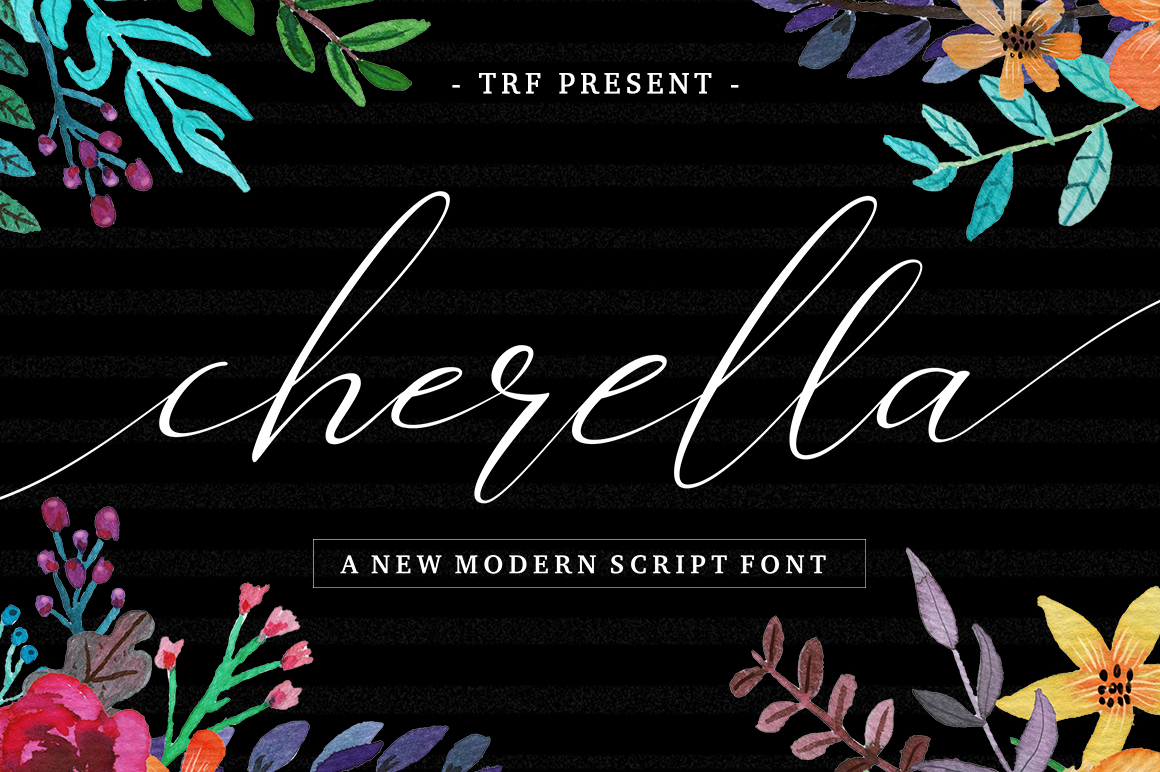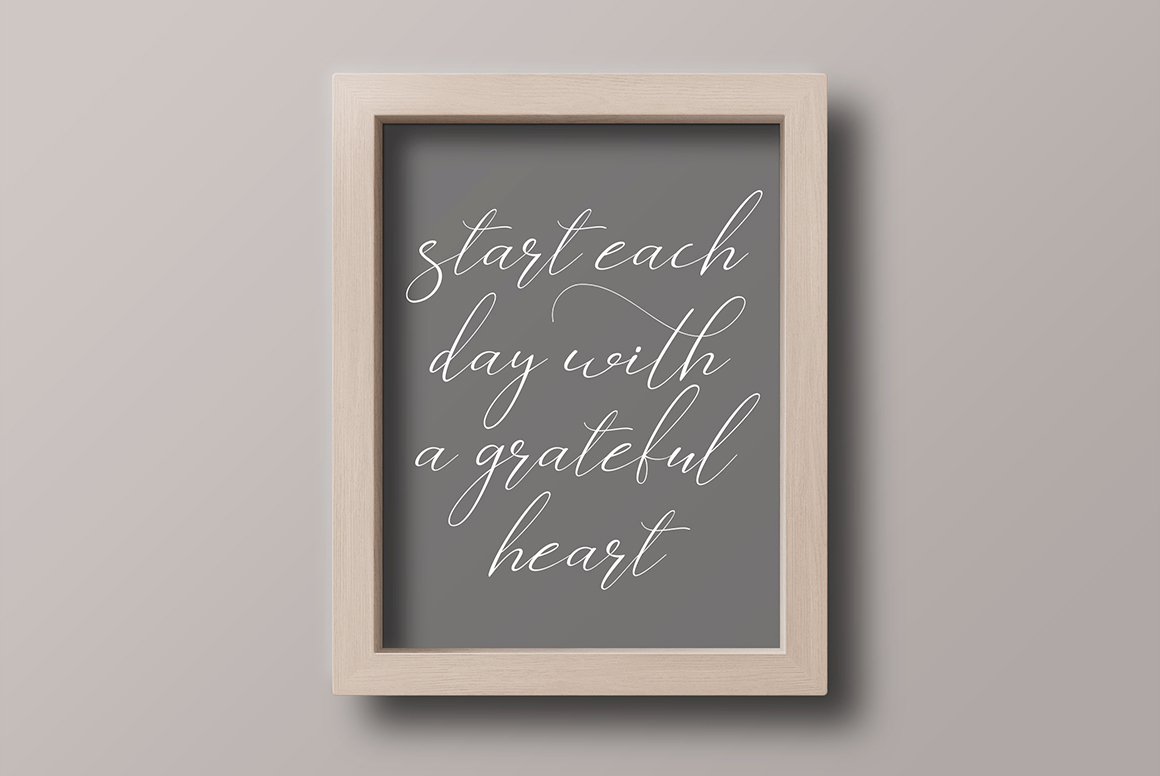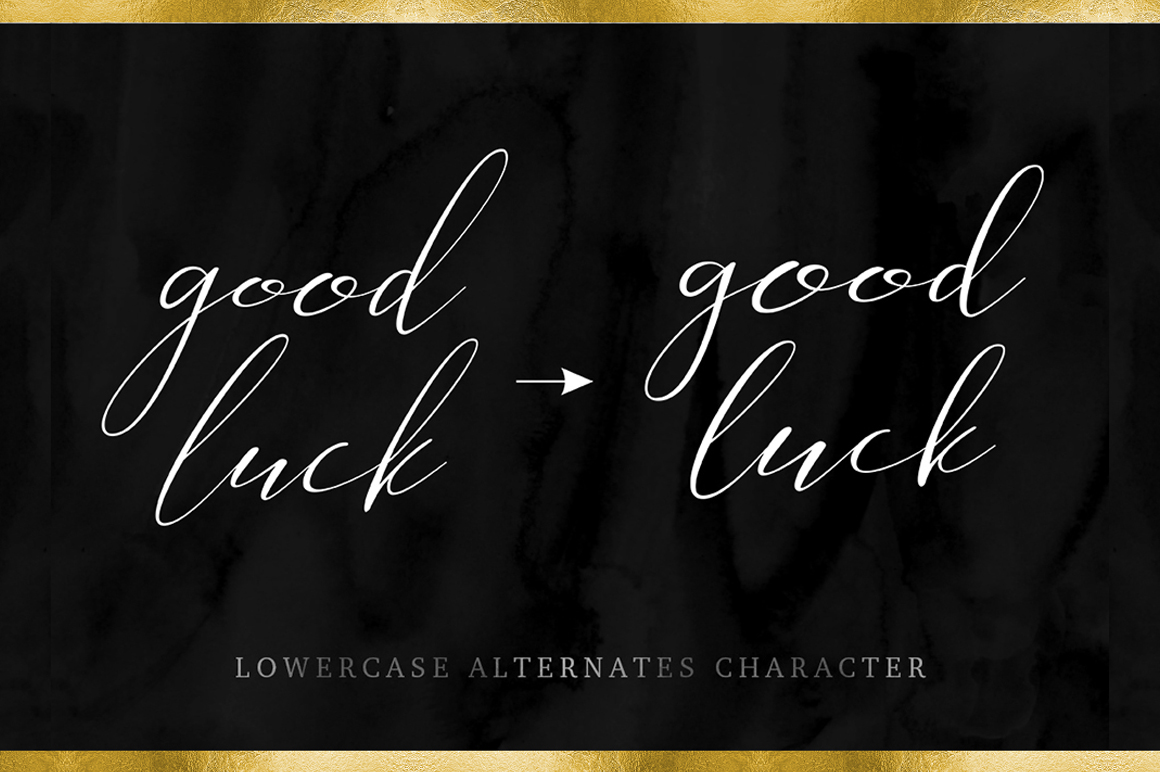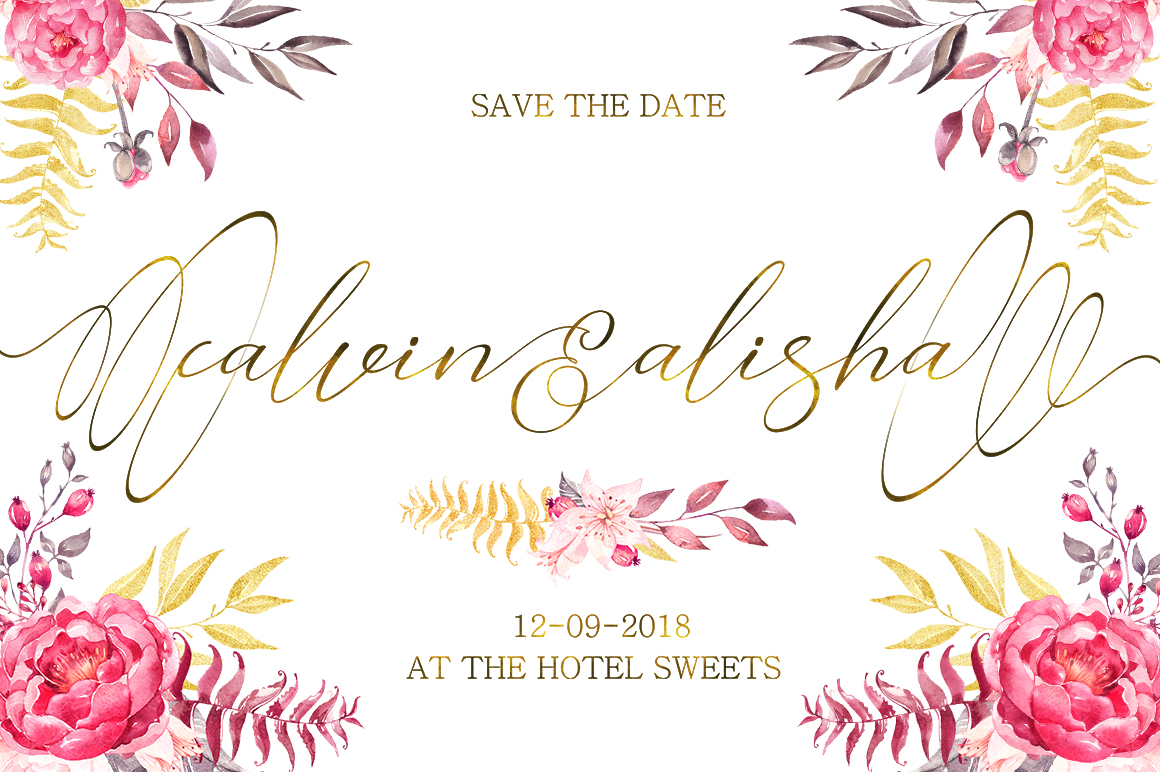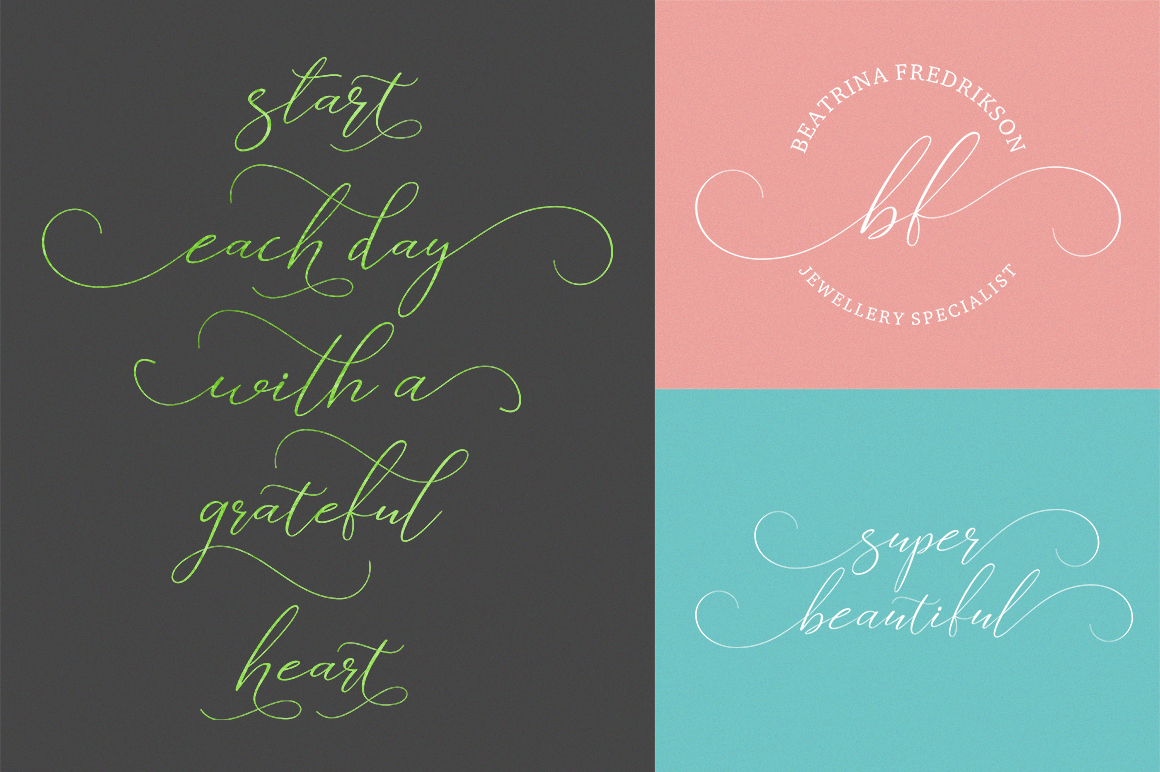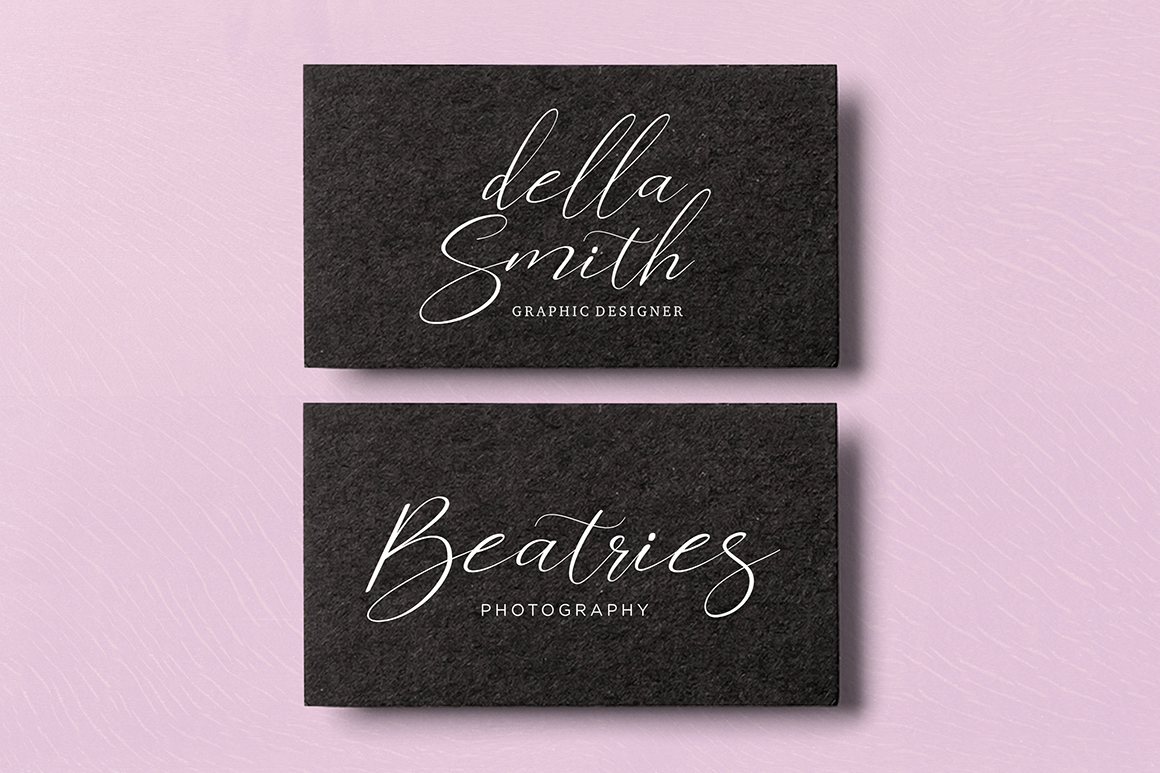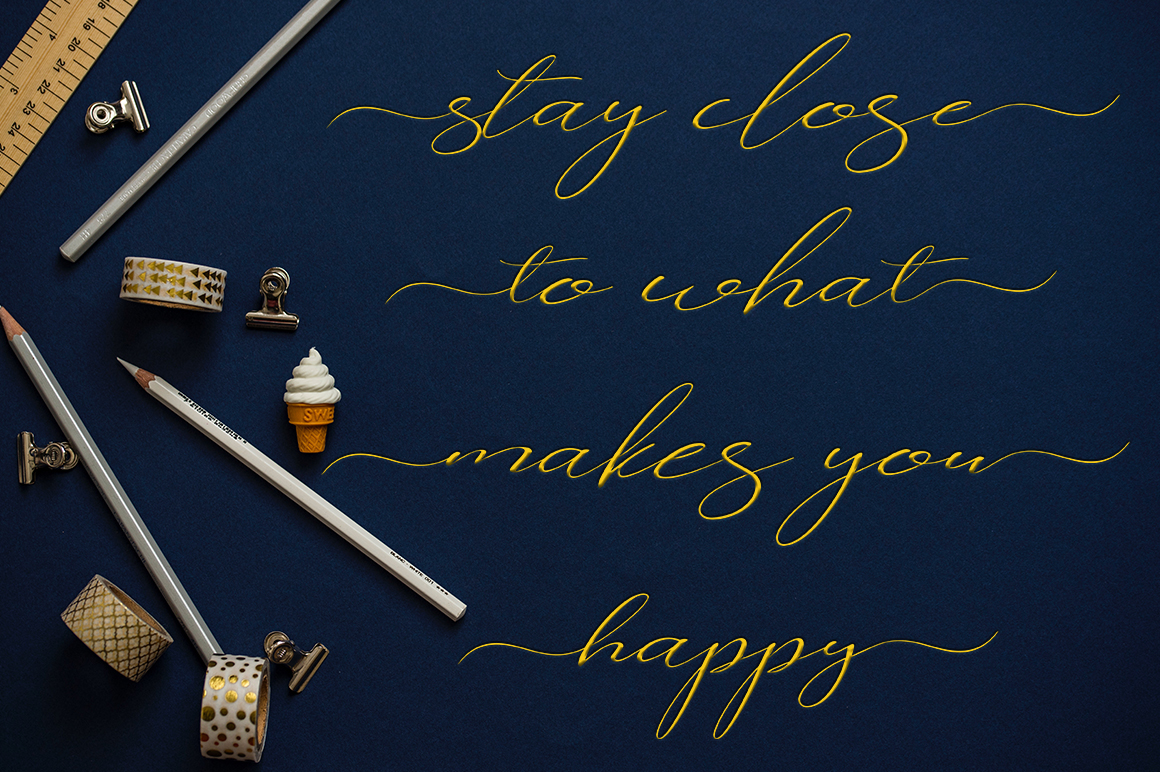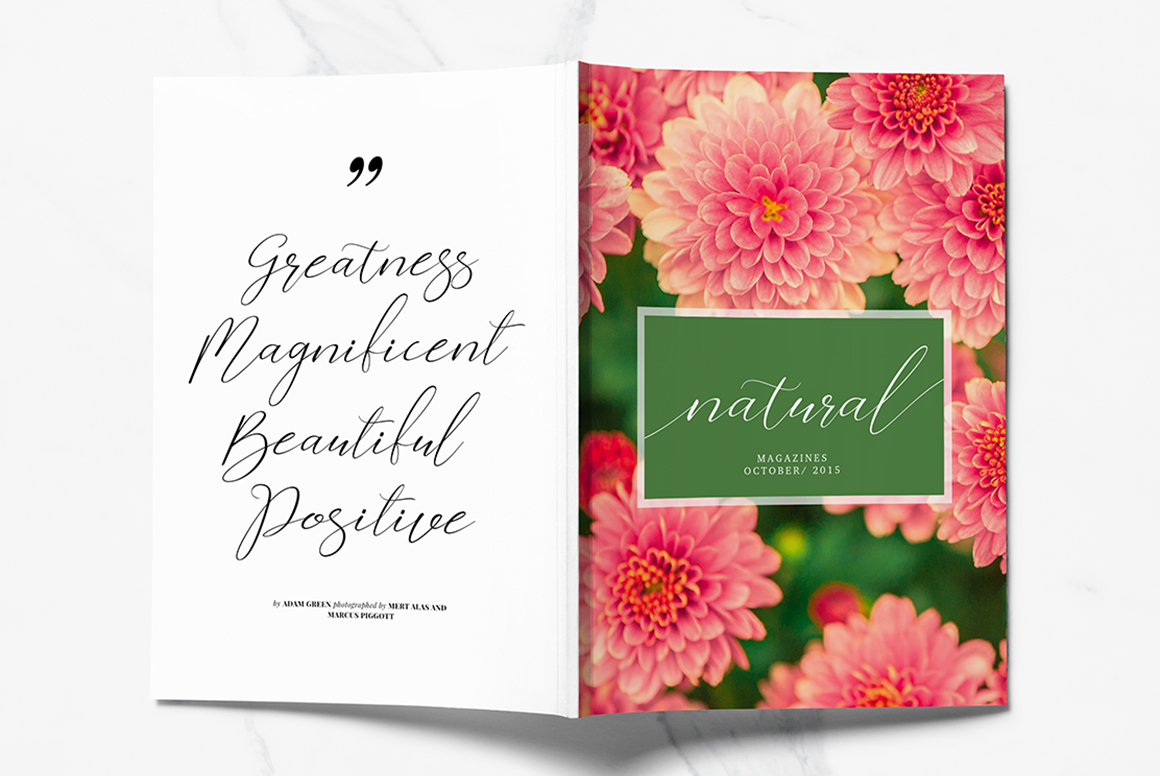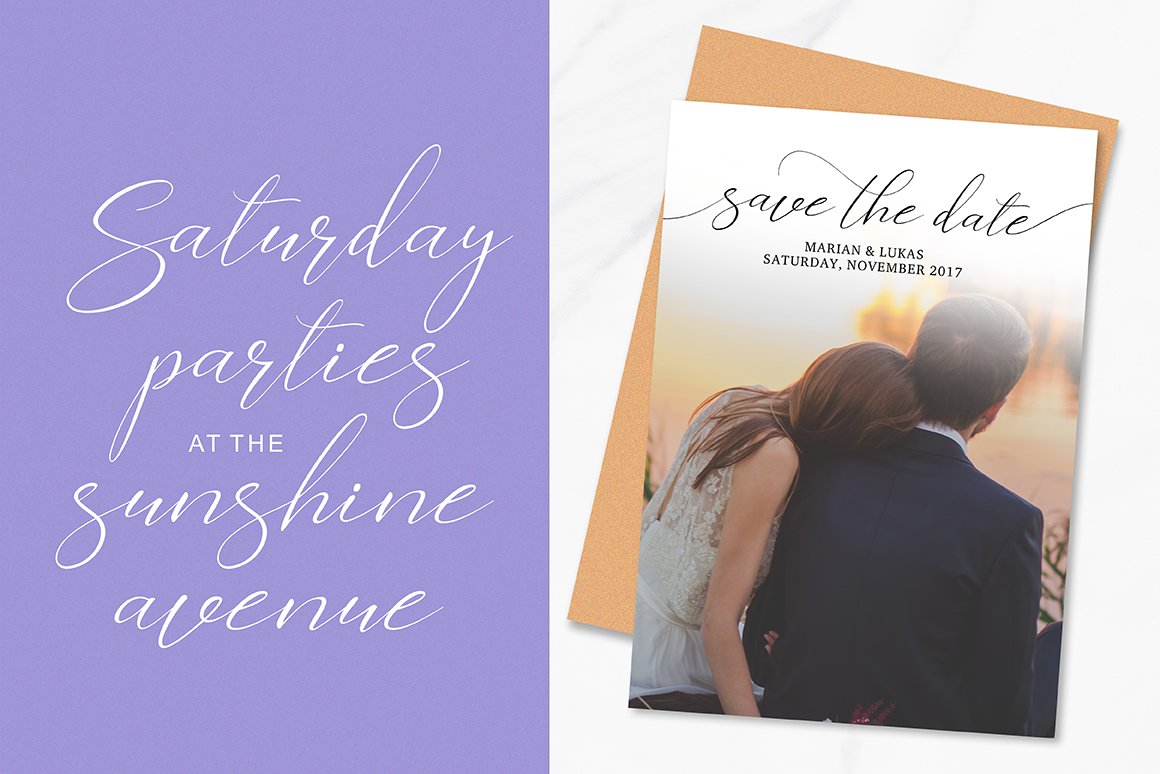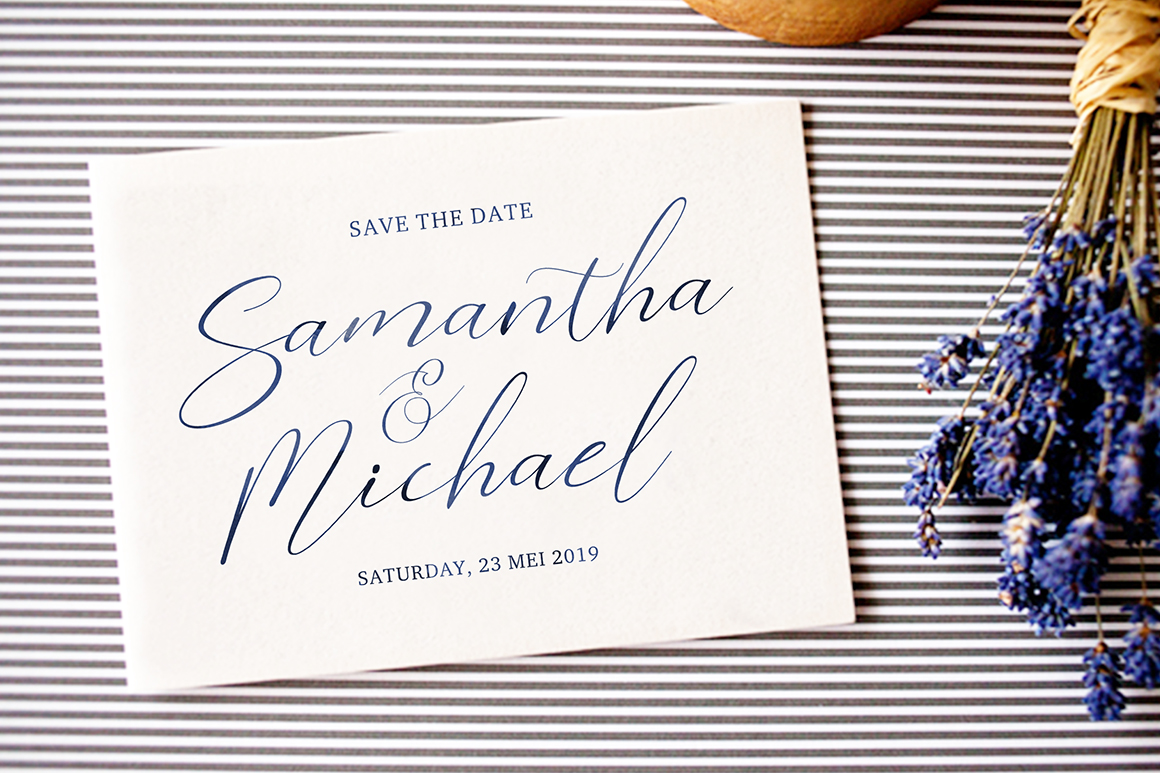
Cherella Font
About Cherella Font
Cherella is a modern calligraphy font. It’s a flowing font that has an elegant, personal touch.
The Cherella font features over 400 unique glyphs and has 245 alternate characters.